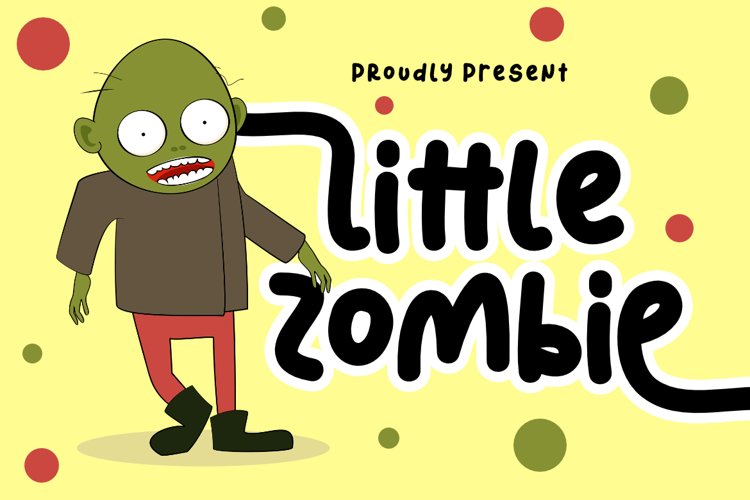
Little Zombie | A Cute Handwritten Display Font
Little Zombie
Little Zombie embodies fun, quirkiness and authenticity. This enchanting display font will turn any creative idea into a true standout.
• Ligatures and Alternates